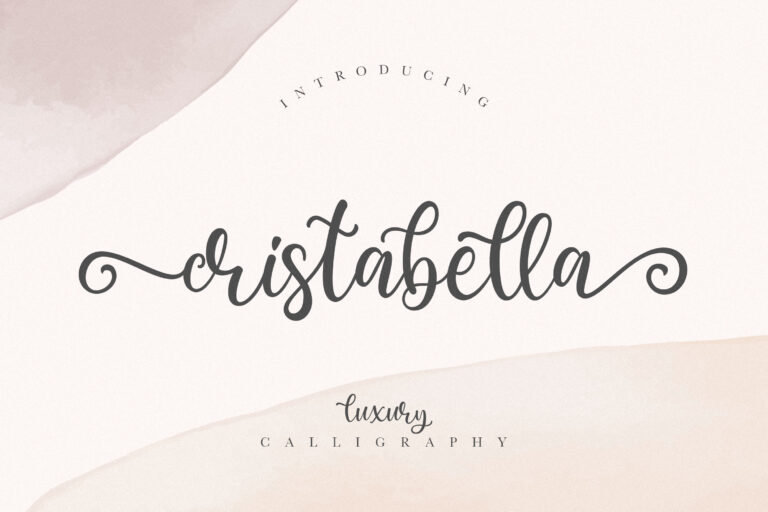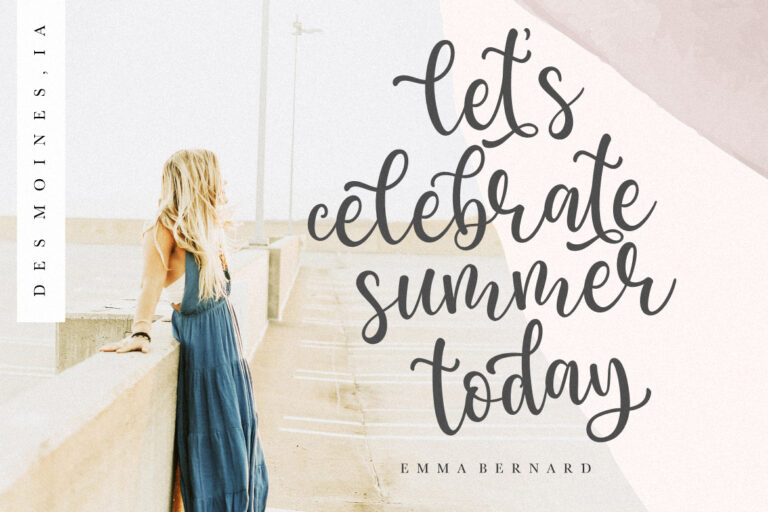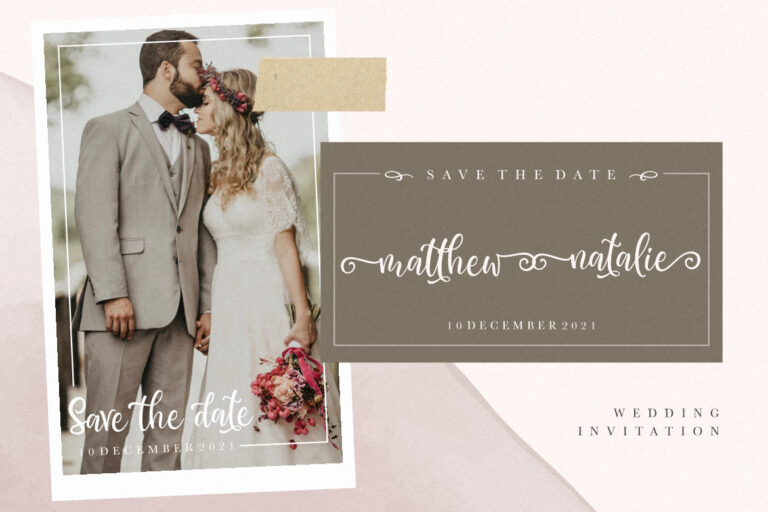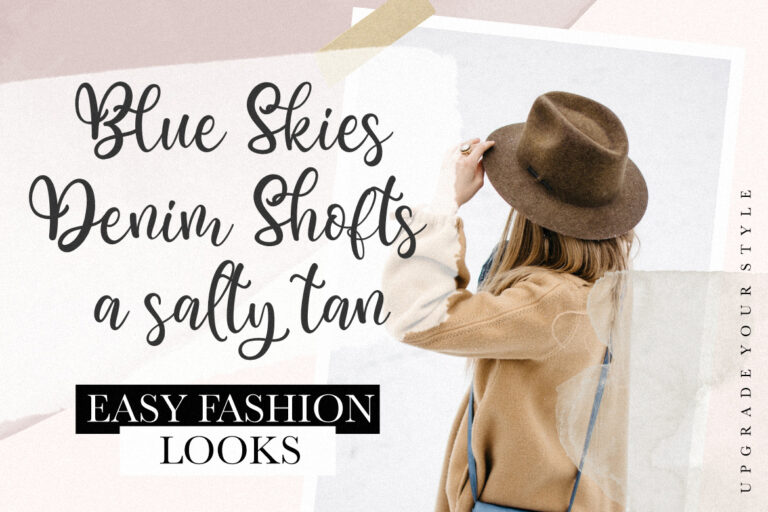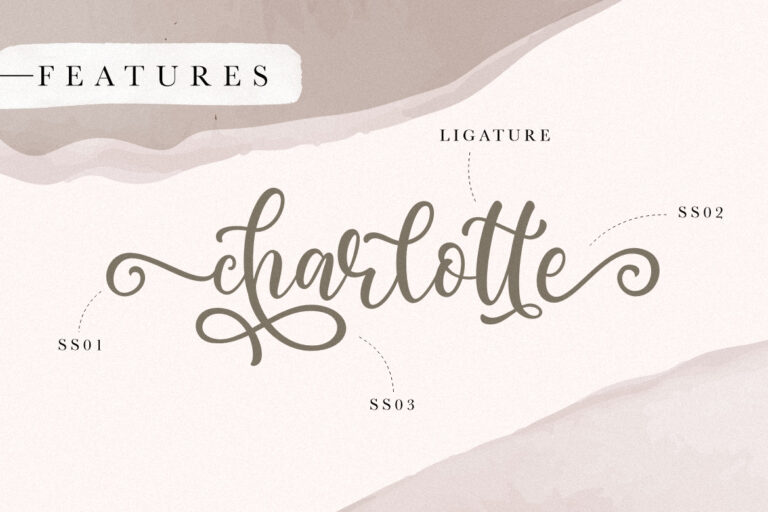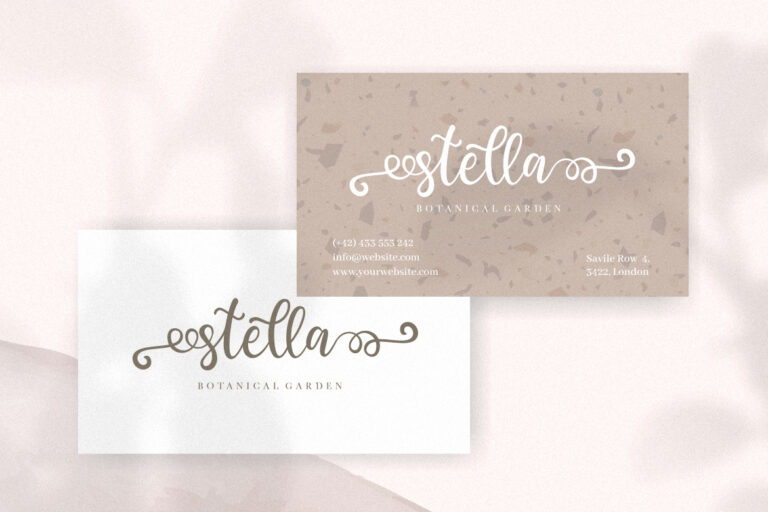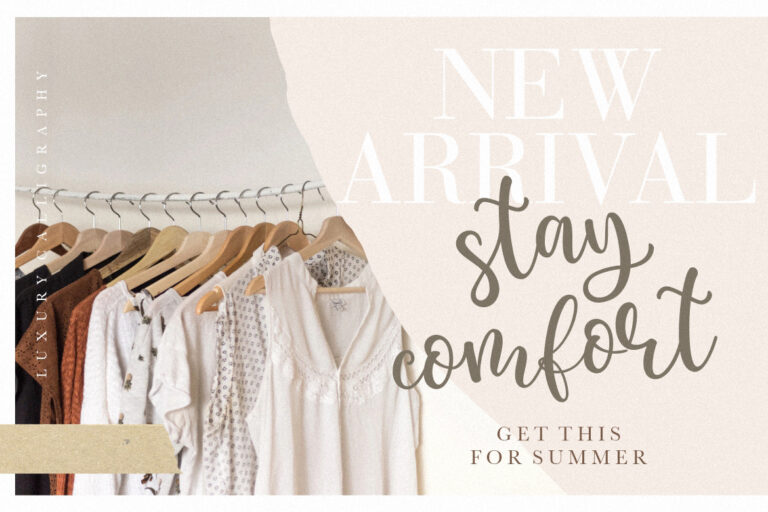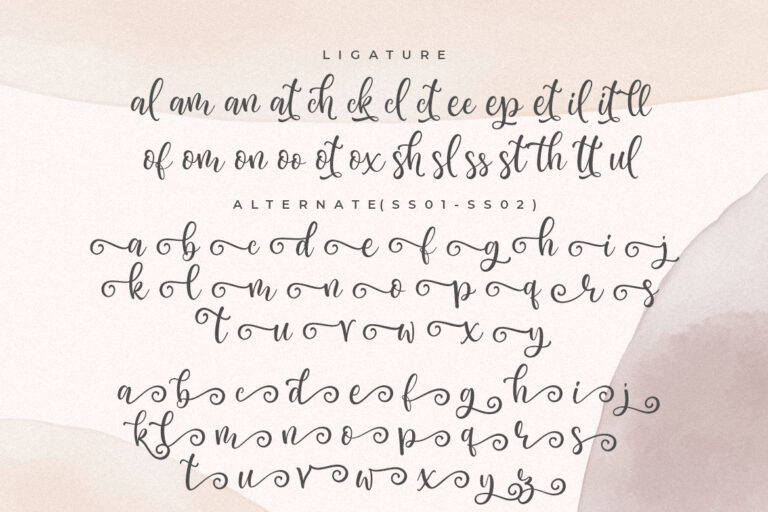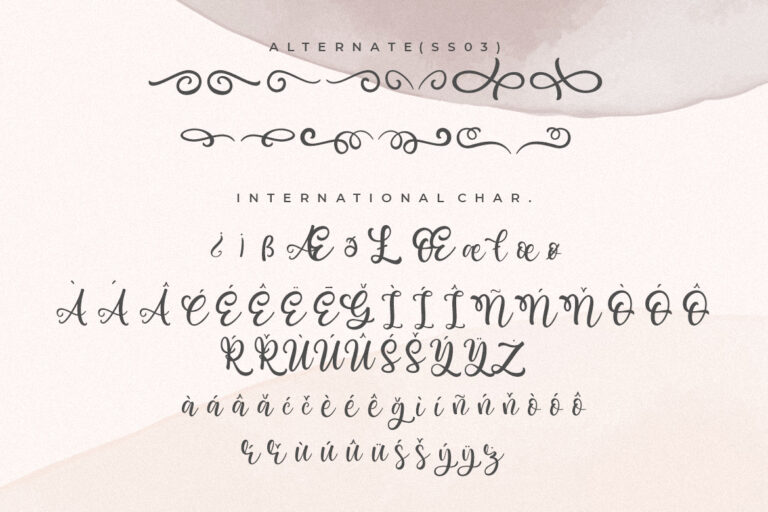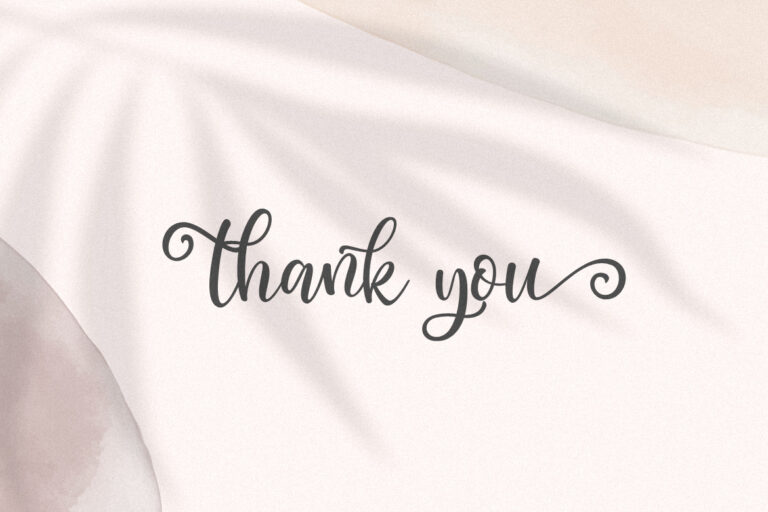
Cristabella a luxury calligraphy font looks elegant, classy and curly.
Cristabella is perfect for branding projects, logo, wedding designs, social media posts, advertisements, product packaging, product designs, label, photography, watermark, invitation, stationery and any projects that need handwriting taste.
- Ligature, Alternate & Swashes
Cristabella Luxury Calligraphy